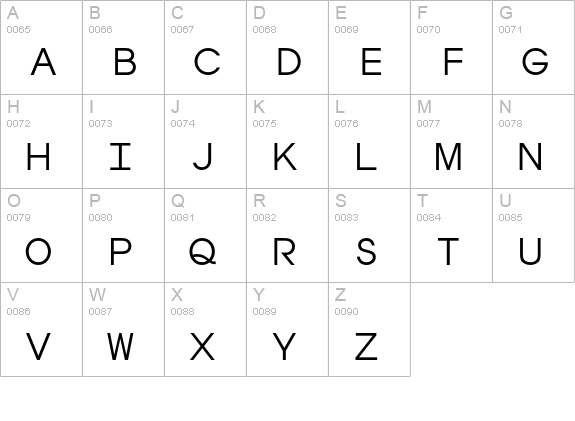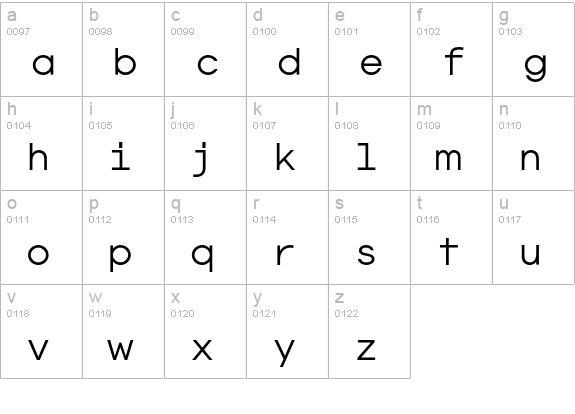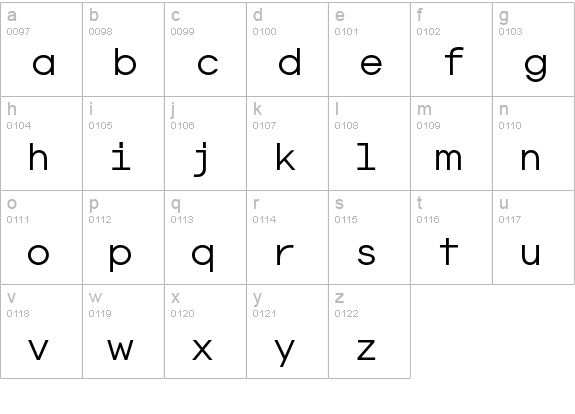
AvantGardeMonoEF-Light Font Details
AvantGardeMonoEF-Light is a refined, elegant variant in the AvantGardeMonoEF typeface family \xE2\x80\x94 well suited to elegant body text, refined sub-headings, and luxury branding.
AvantGardeMonoEF-Light is a sleek and modern font that exudes sophistication and elegance. Its minimalist design and clean lines make it perfect for a wide range of design projects, from branding to editorial layouts. The light weight of this font adds a touch of delicacy and refinement, making it ideal for conveying a sense of modernity and style. What's even better is that AvantGardeMonoEF-Light is available for free download at FontsMarket.com. This means you can easily access this stunning font and use it in your projects without any cost. Don't miss out on the opportunity to enhance your designs with the beauty and versatility of AvantGardeMonoEF-Light. Download it now and elevate your creative work to new heights.